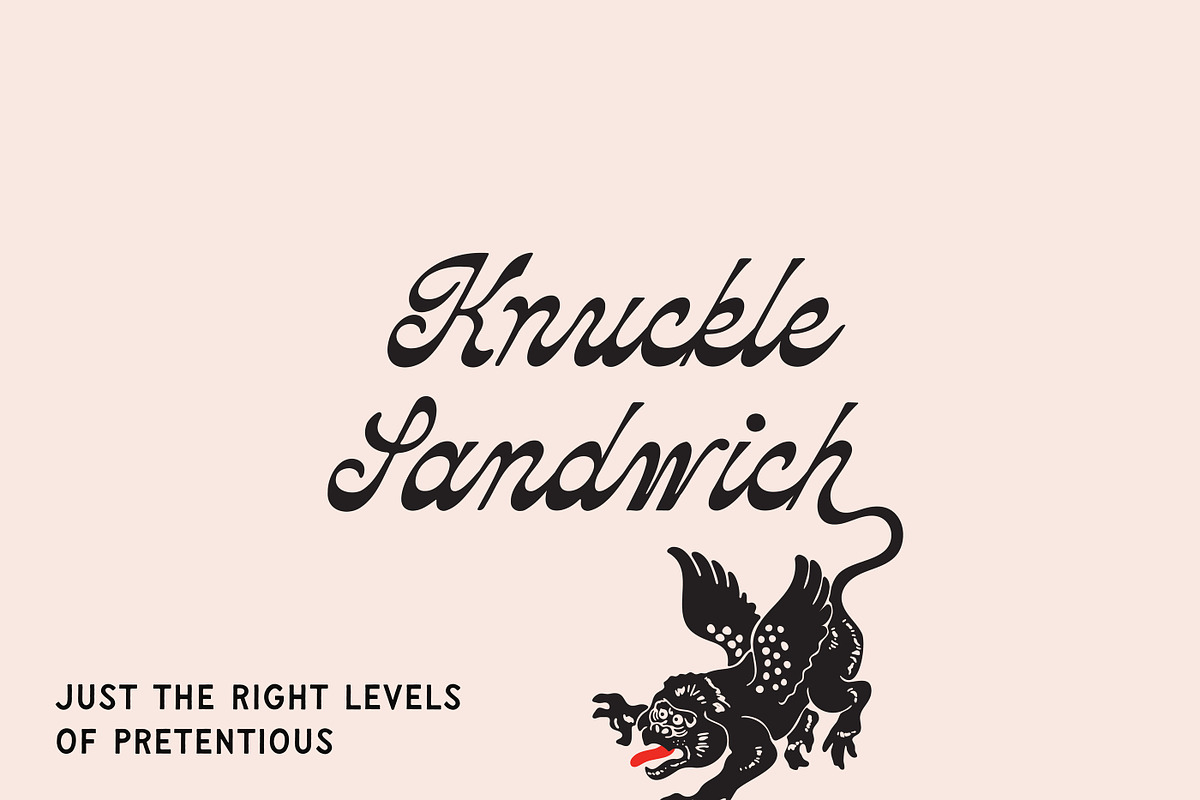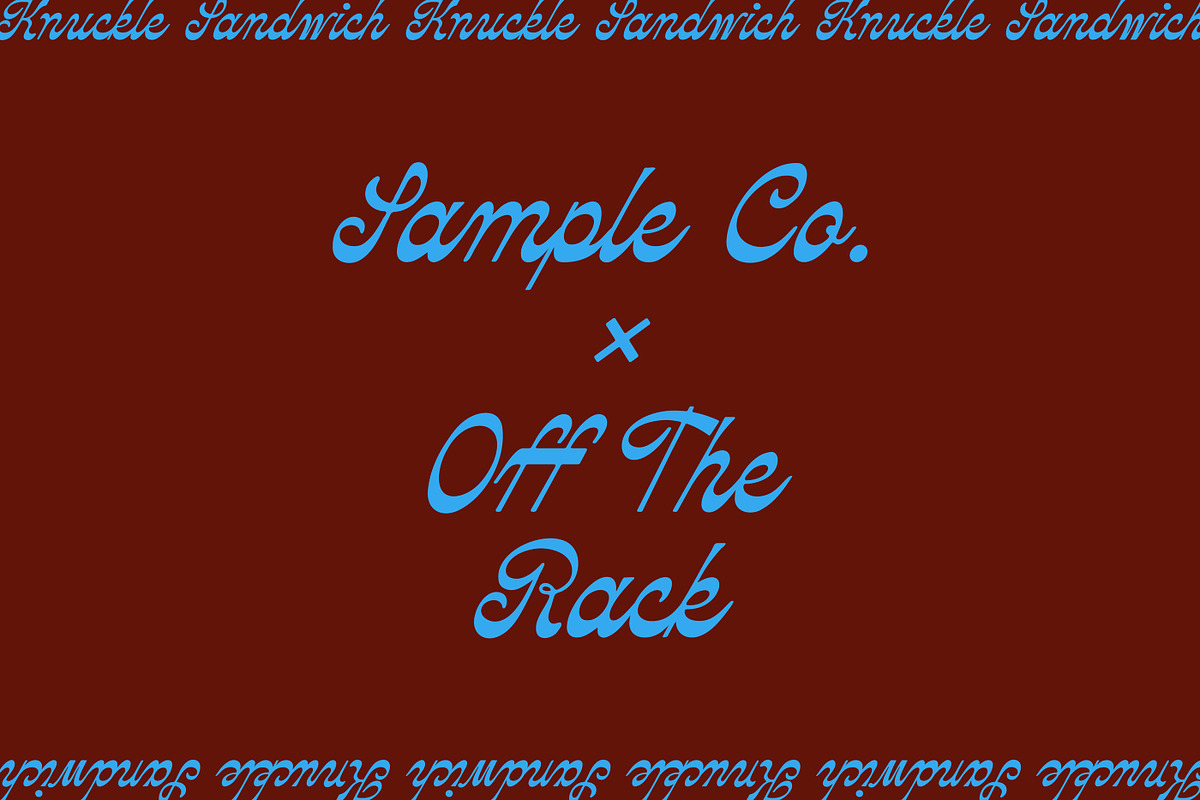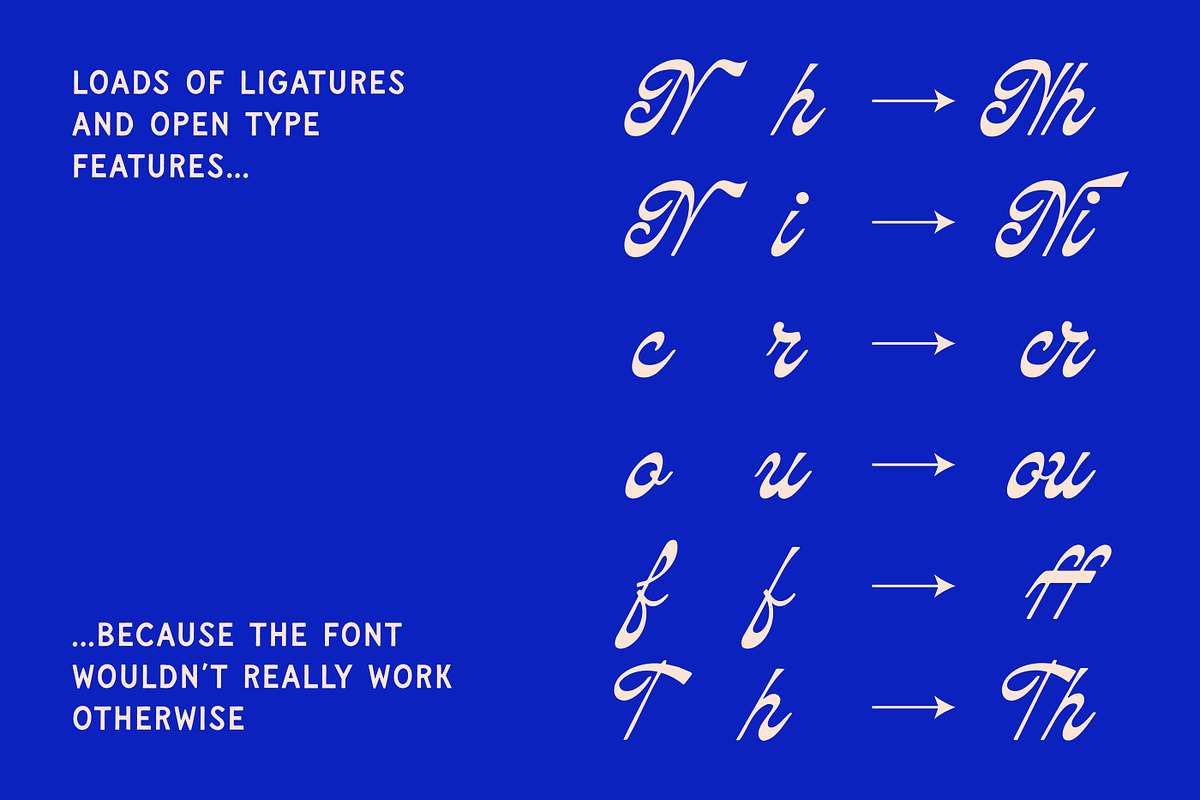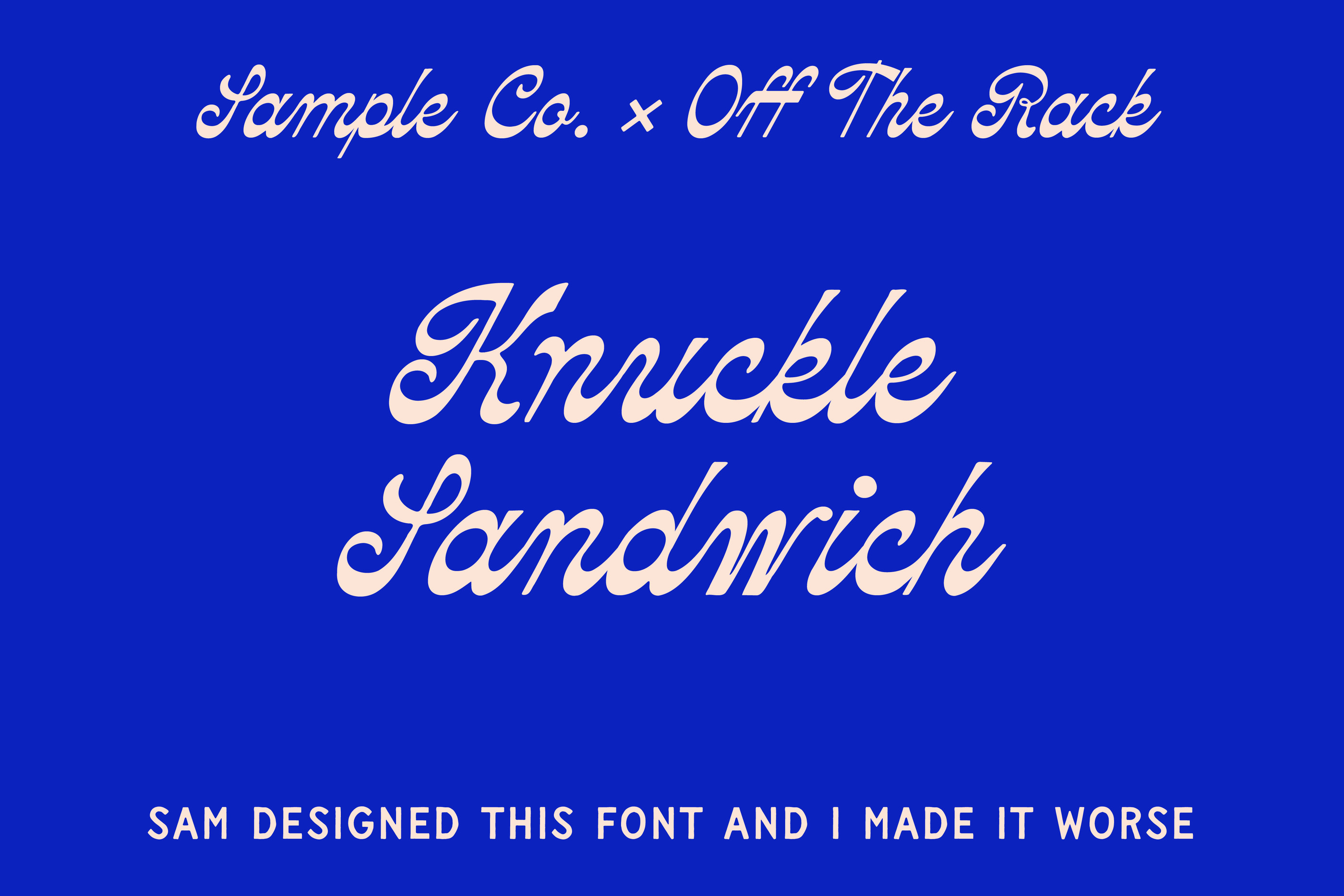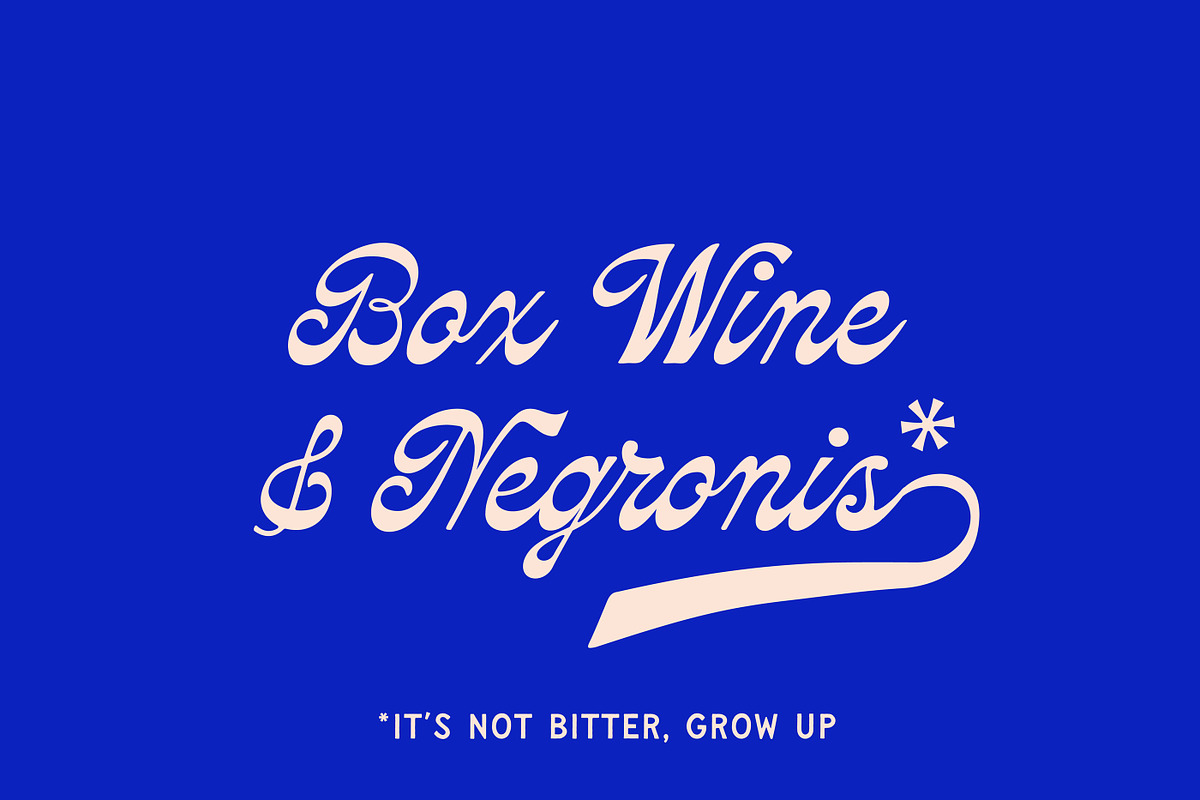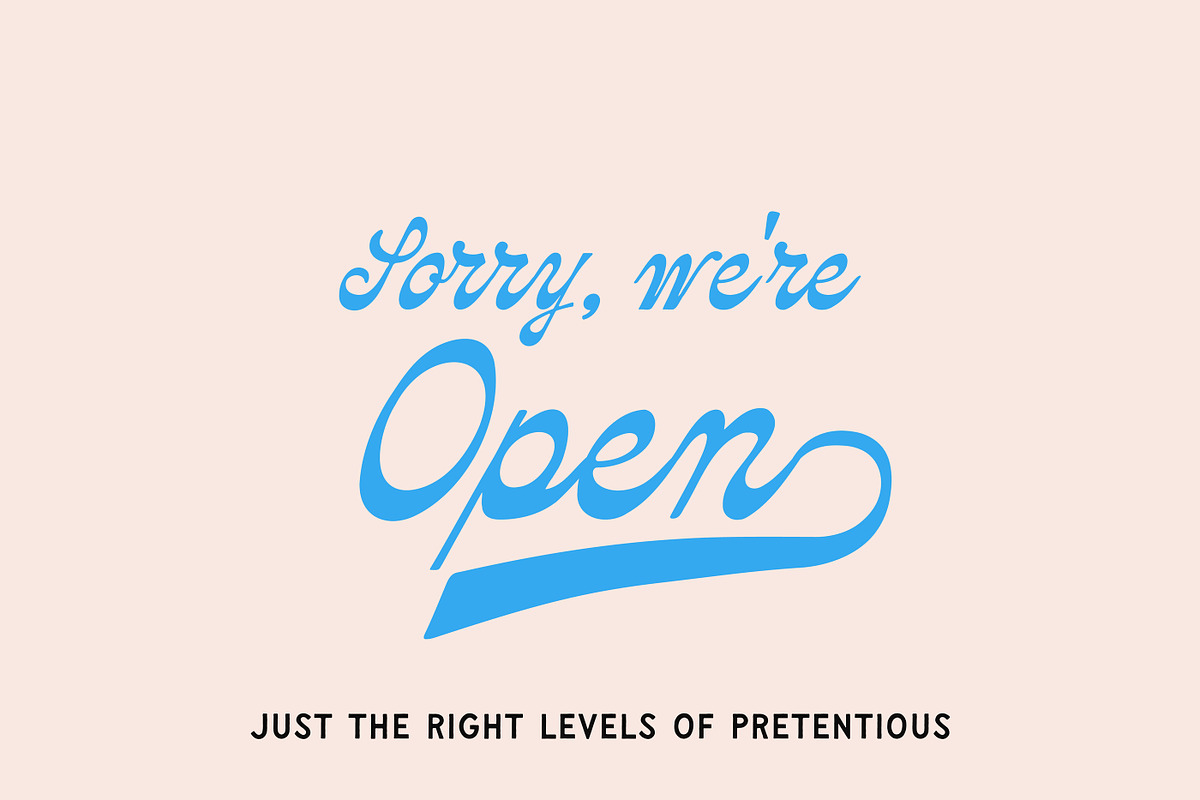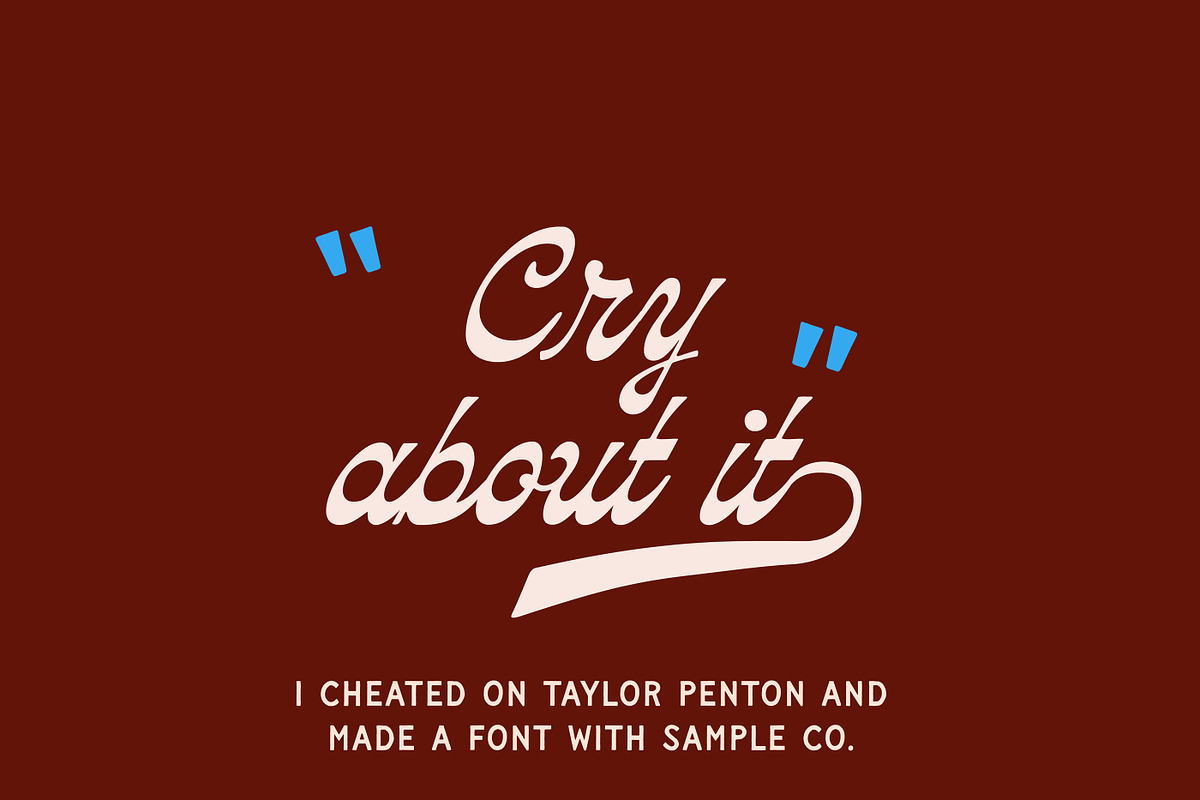
Knuckle Sandwich Script Typeface
My buddy Sam and I collaborated to bring you probably the sexiest font either of us has made yet 😎
Knuckle Sandwich is a clean, slightly inky display typeface, intended for logos and anywhere else one might like to see nice letters. Use it, abuse it, just don't bump up the tracking or the letters won't connect... or do, whatever 🤷
Contains various OpenType features including Contextual Alternate characters, and ligatures. Language support covers exactly 69 languages.